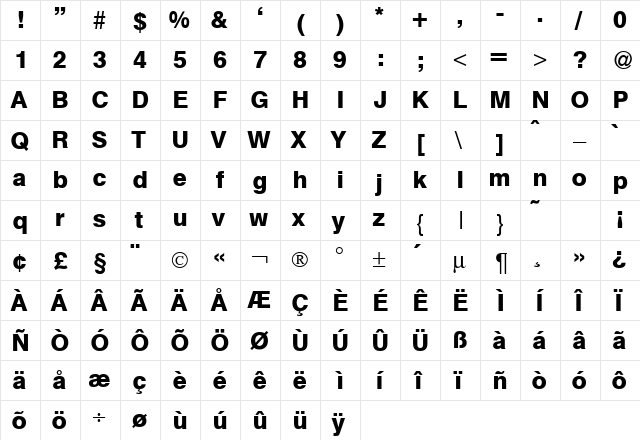
HelbaBlackDB Normal
Design Context for HelbaBlackDB Typeface
HelbaBlackDB takes a measured approach to typography — its balanced proportions and neutral character make it a reliable workhorse for both digital and print work.